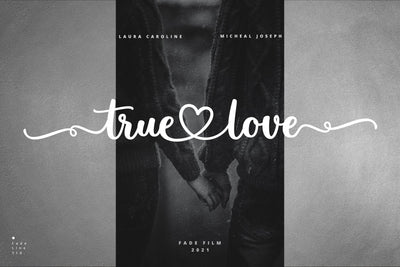
Hi Guys! Introduce Malovely Font! This is a beautiful script font made with love and it is font that will make your designs even more fun!
With a style like this, this font will be suitable in use for logo's, branding projects, homeware designs, product packaging, mugs, quotes, posters, shopping bags, logo's, t-shirts, book covers, name card, invitation cards, greeting cards, and all your other lovely projects.
You can use this font for your job very easily. Because there are many features in it. Contains the complete set of lower and uppercase letters, punctuation, numbers, web fonts, and multilingual support. This font also includes several ligatures and alternative style Stylistic Set For those of you who have software that is capable of working OpenType (Corel Draw / Photoshop / Illustrator / InDesign).